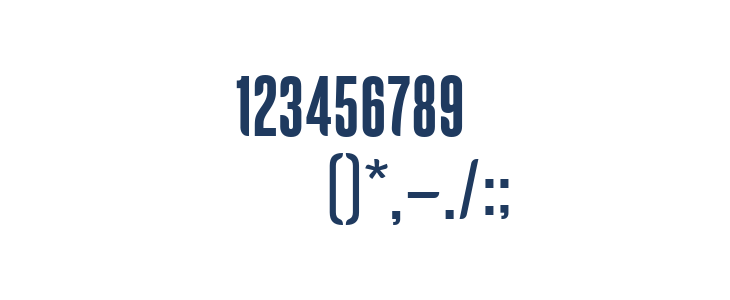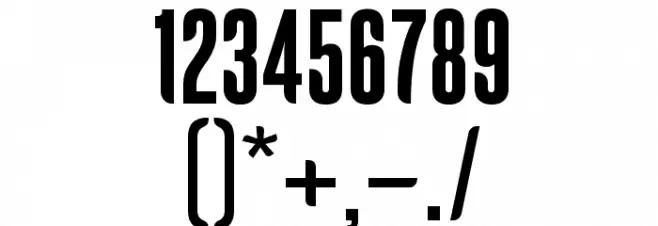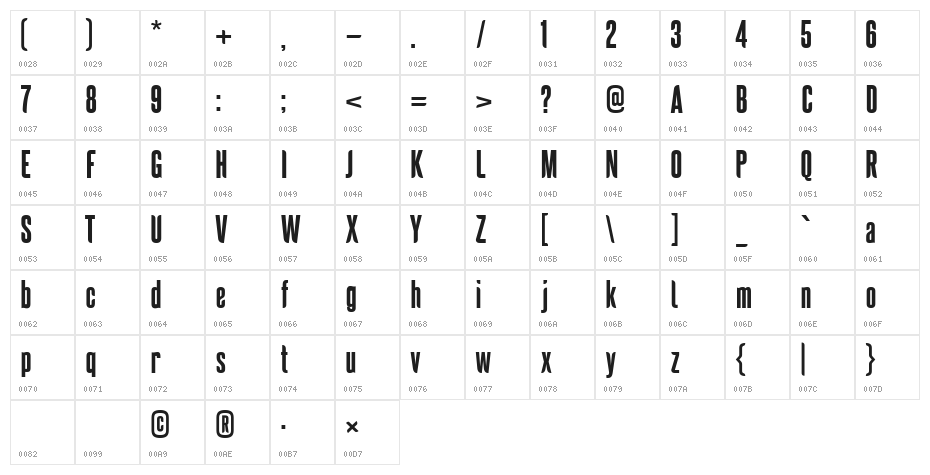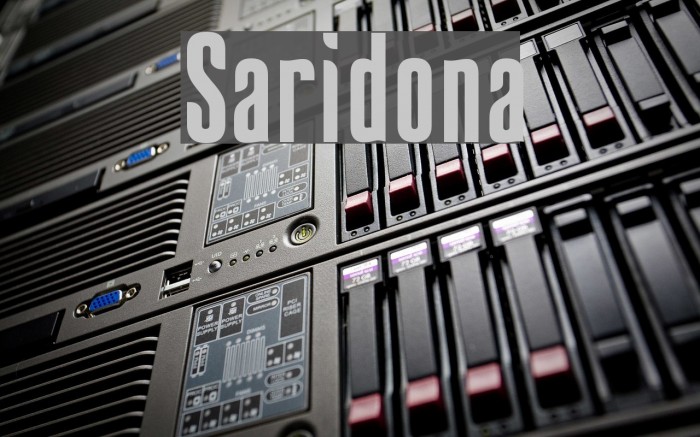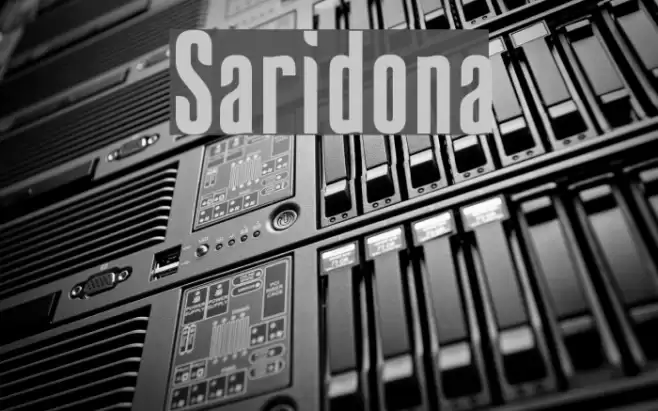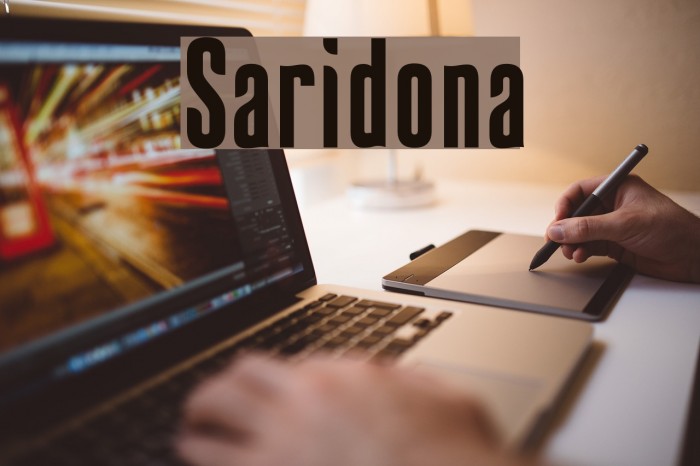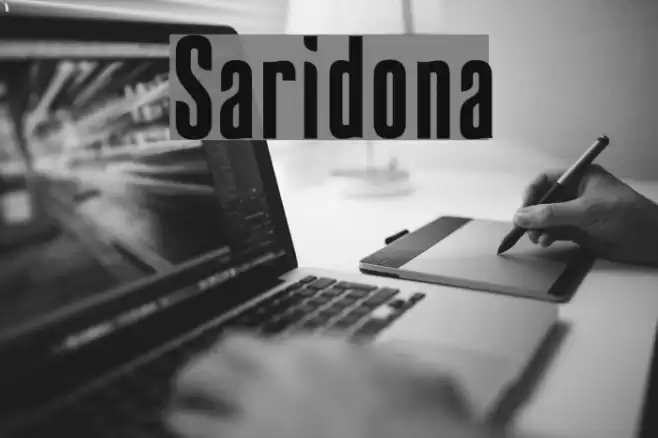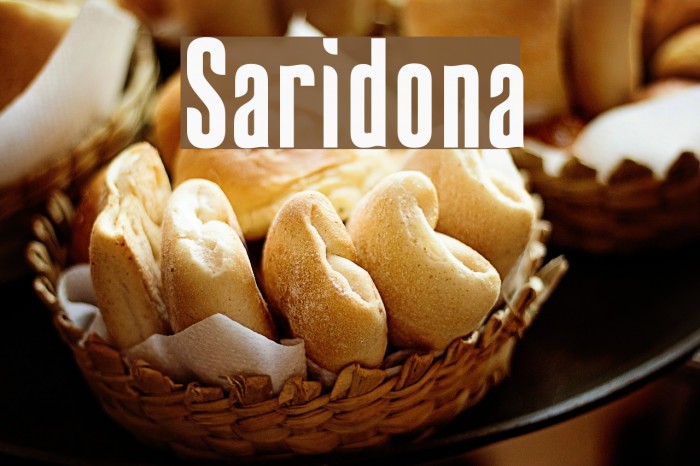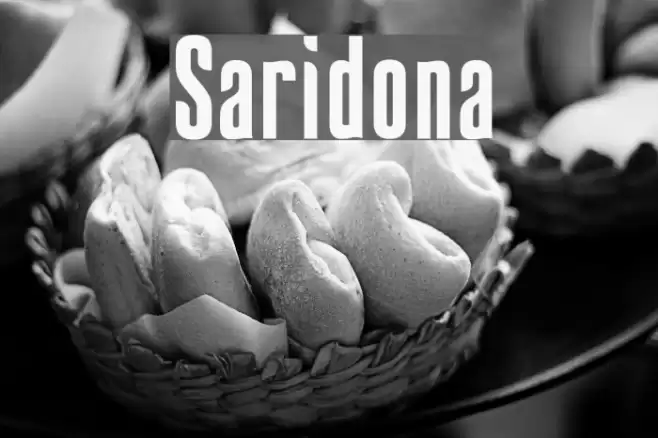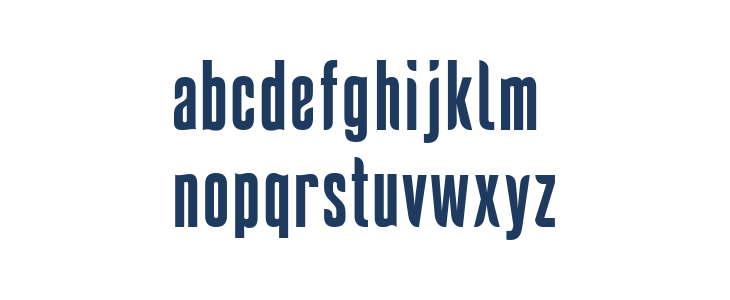
Saridona Font
Saridona Description
This font features a bold and impactful design with tall, narrow characters that convey a sense of strength and modernity. The uppercase letters are particularly striking, with a consistent height and a slight curvature that adds a touch of elegance. The lowercase letters maintain the same narrow structure, ensuring readability while preserving the font's distinctive style. Numbers and special characters are designed to match the overall aesthetic, making them suitable for a variety of applications. The font's clean lines and uniform stroke width give it a contemporary feel, ideal for making a statement in any design project.